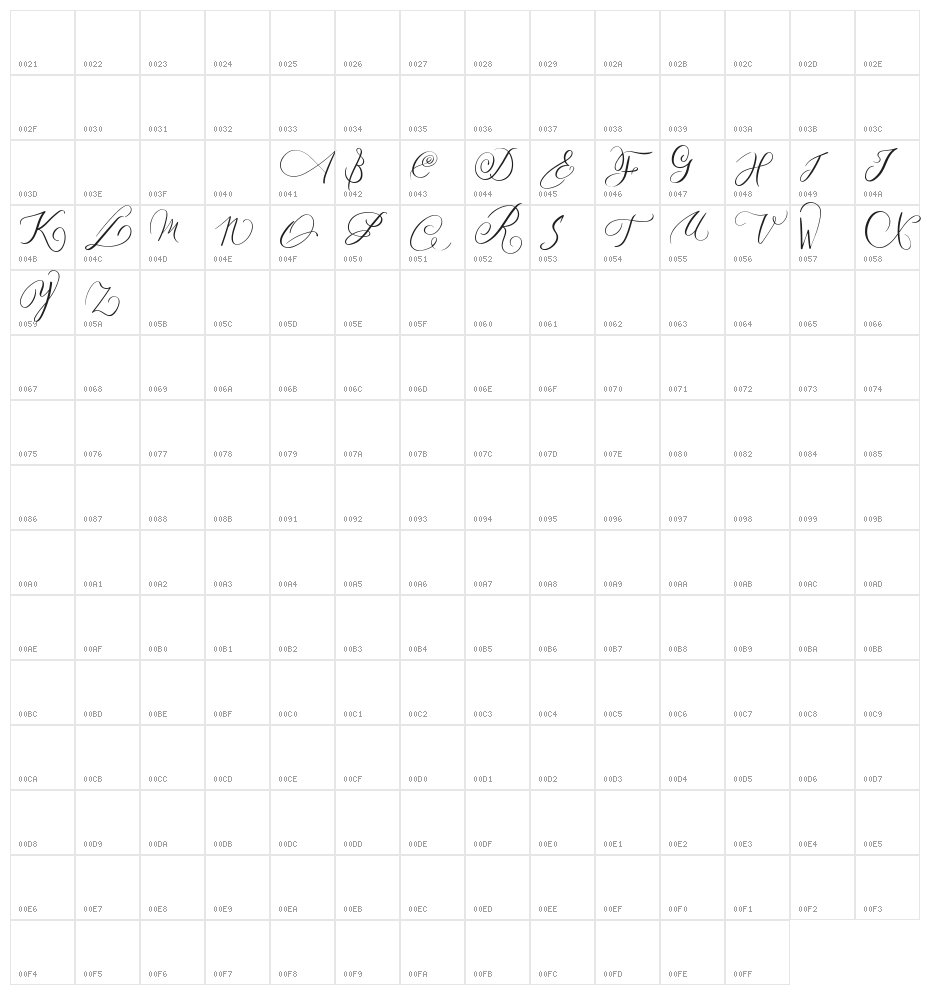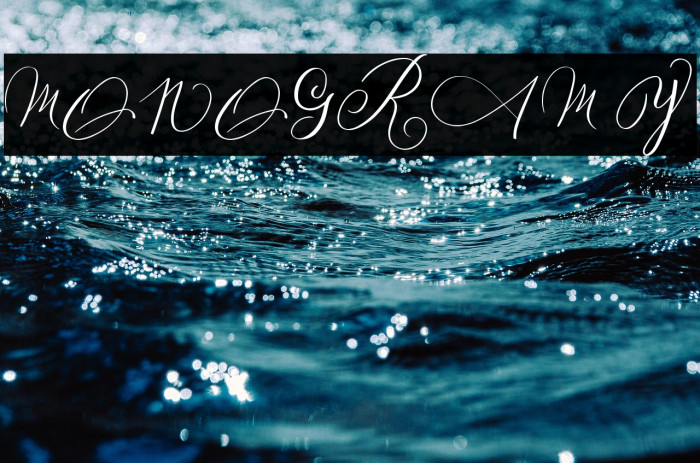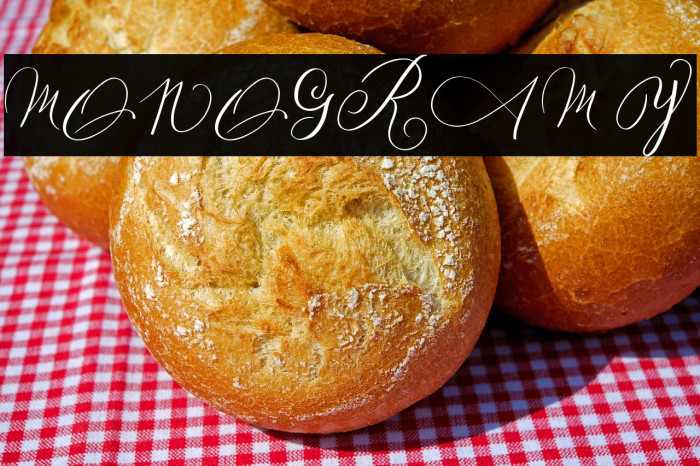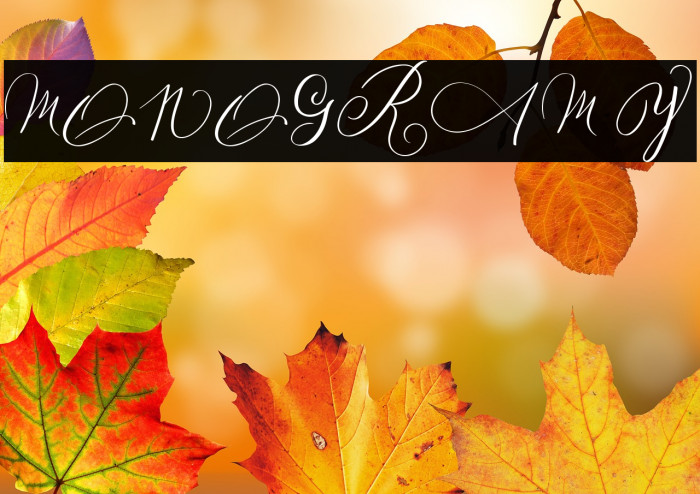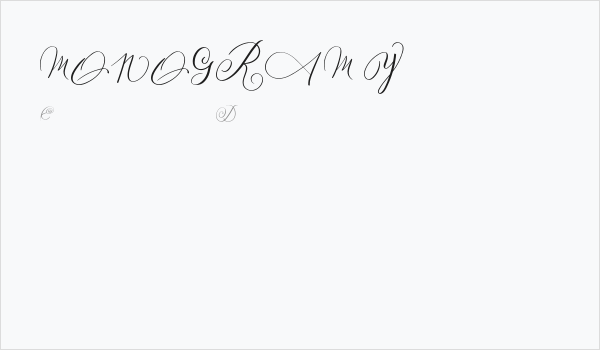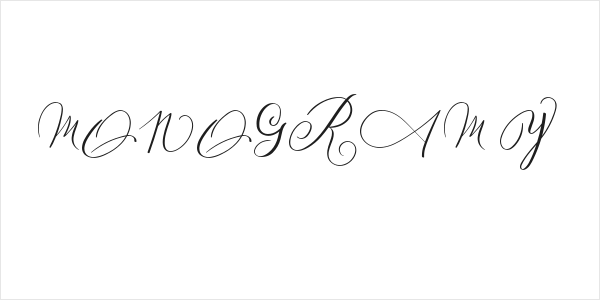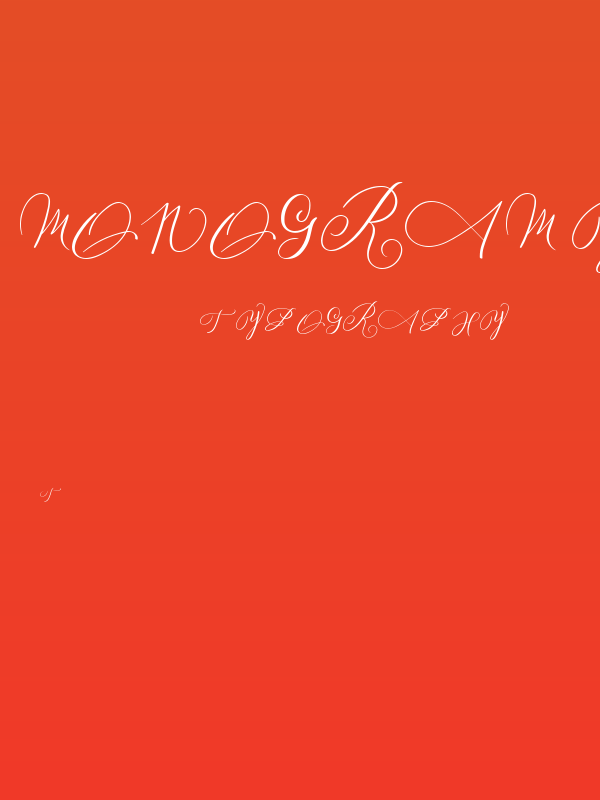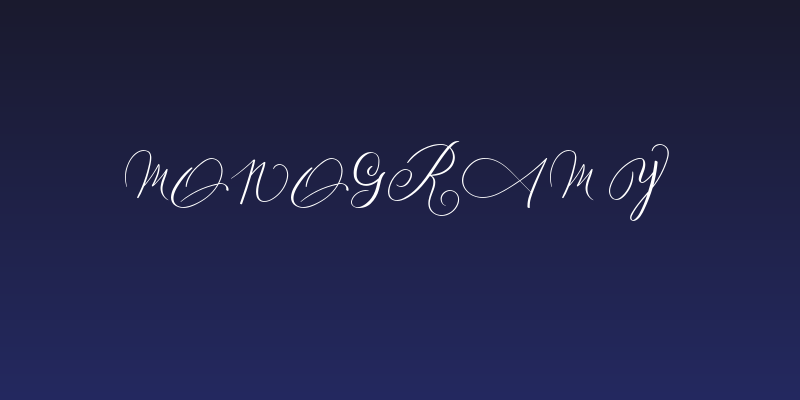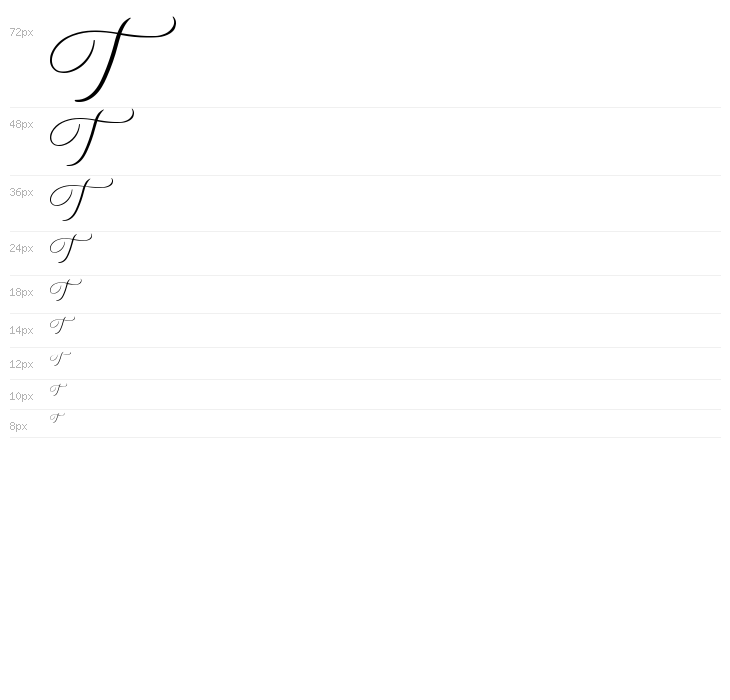
MONOGRAM Y Font
MONOGRAM Y Description
This elegant script font features intricate, flowing letterforms with elaborate swashes and curls, creating a sophisticated and ornate appearance. Each character is designed with a high level of detail, making it ideal for decorative purposes. The uppercase letters are particularly elaborate, with extended flourishes that add a touch of luxury and refinement. The font maintains a consistent stroke width, contributing to its graceful and fluid style. Its artistic design makes it suitable for formal invitations, monograms, and branding that requires a touch of elegance.
| Use Case | Logos, Invitations, Monograms |
| Proposed Projects | Ideal for wedding invitations, luxury branding, monograms, and elegant stationery. |